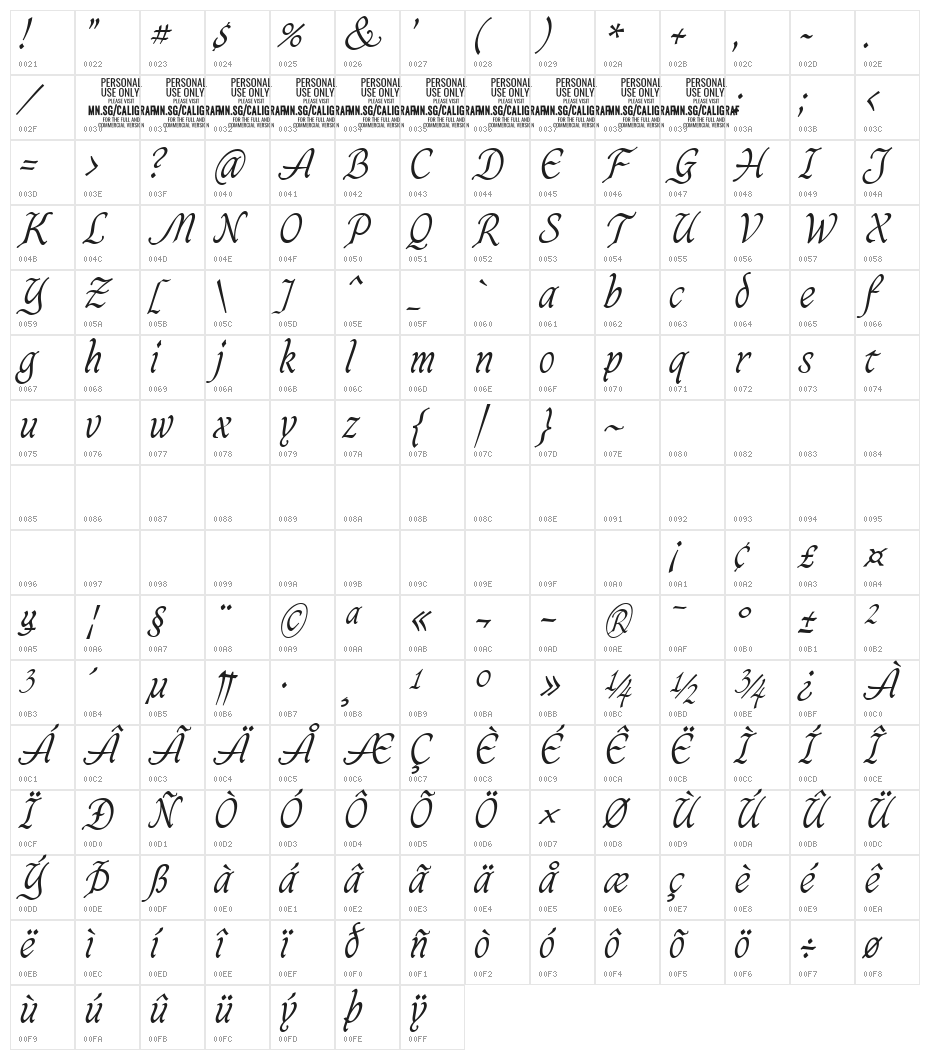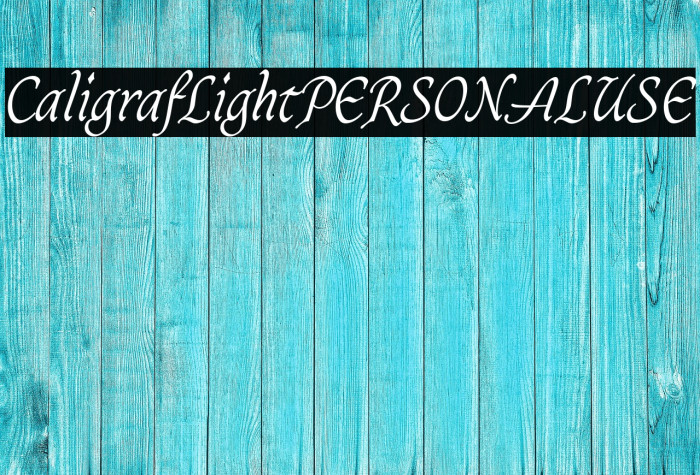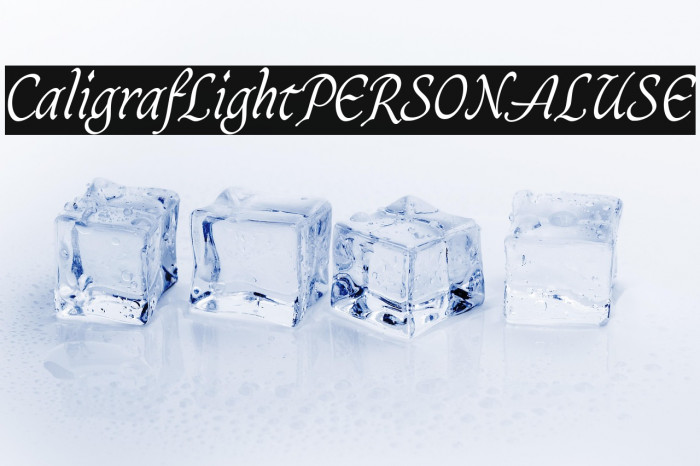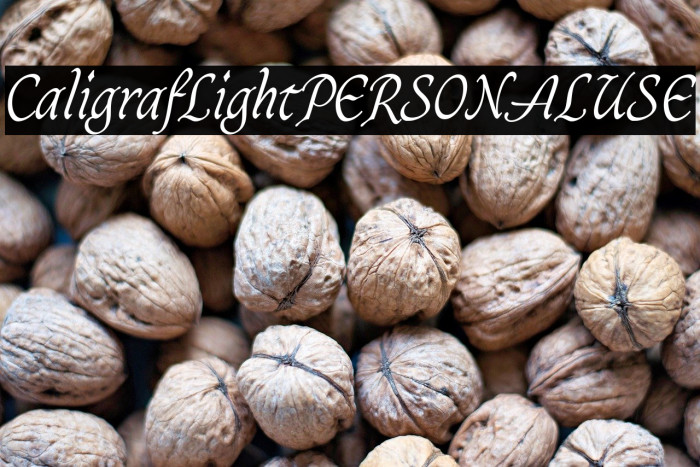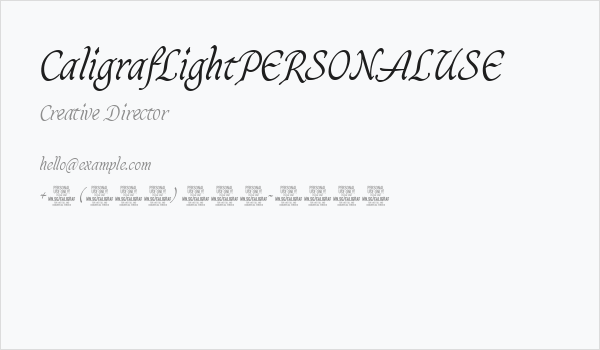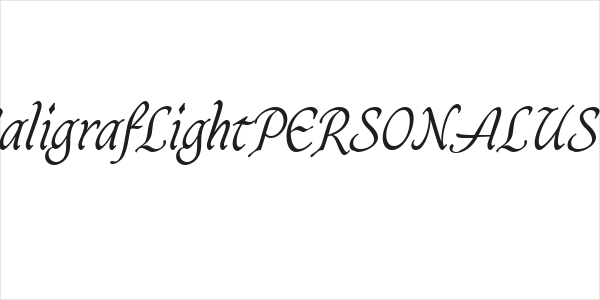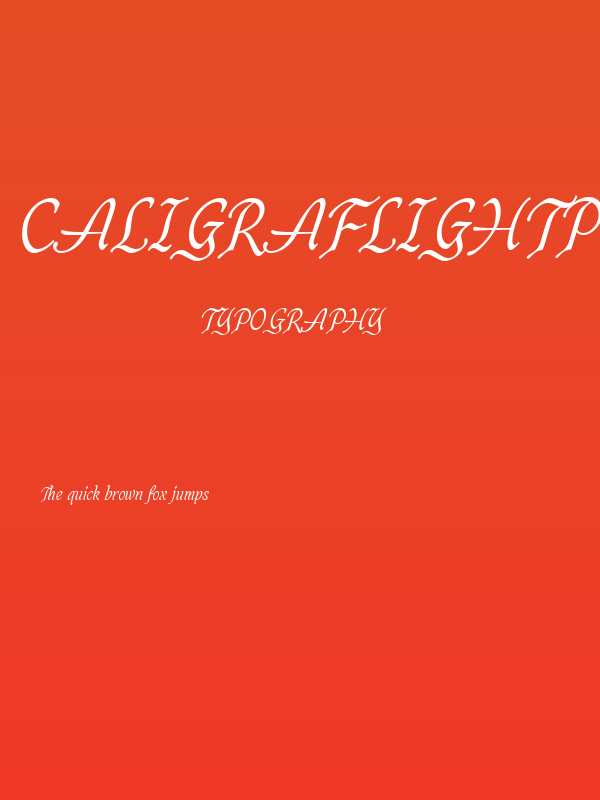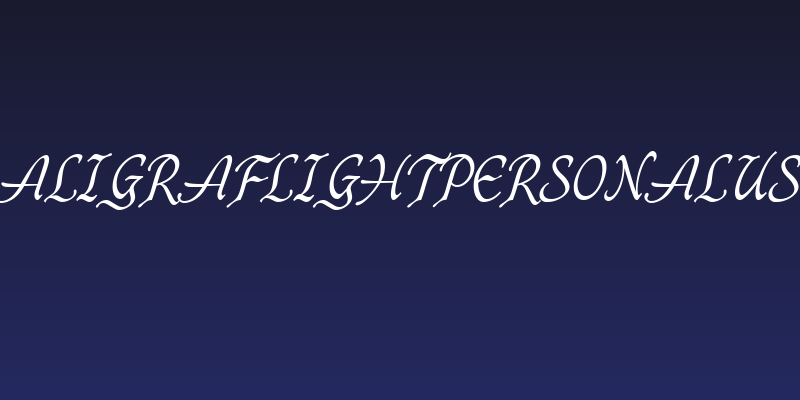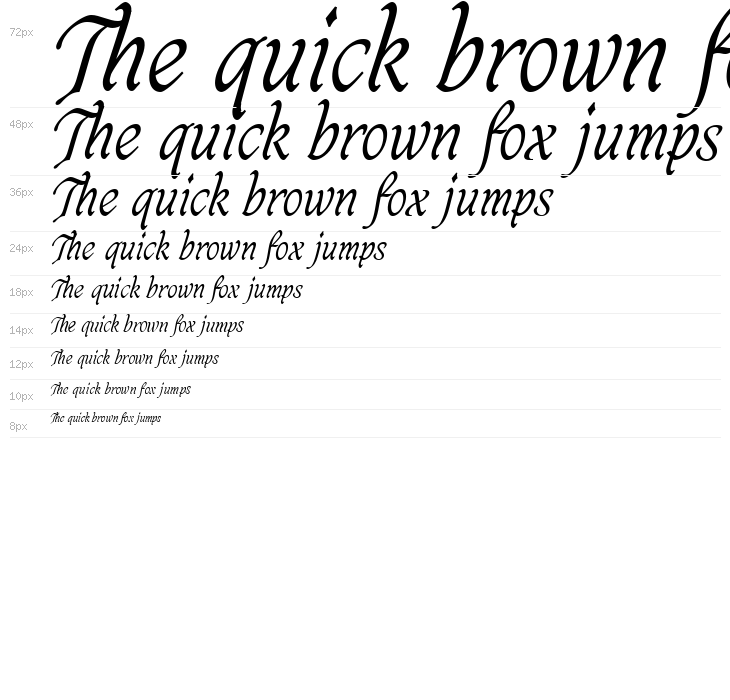
CaligrafLightPERSONALUSE Font
CaligrafLightPERSONALUSE Description
This elegant script font features flowing, cursive letterforms that exude a sense of sophistication and grace. The uppercase letters are slightly more ornate, with sweeping curves and delicate flourishes, while the lowercase letters maintain a consistent, fluid style. The numbers and special characters are designed to complement the overall aesthetic, with a harmonious blend of curves and angles. This font is perfect for projects that require a touch of elegance and refinement, such as invitations, branding, and decorative designs.
| Proposed Projects | Ideal for wedding invitations, elegant branding, decorative projects, and personal stationery. |